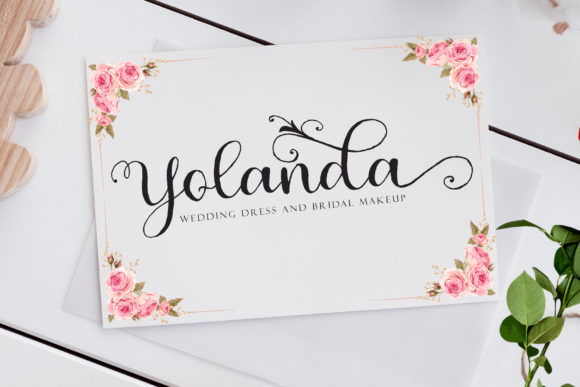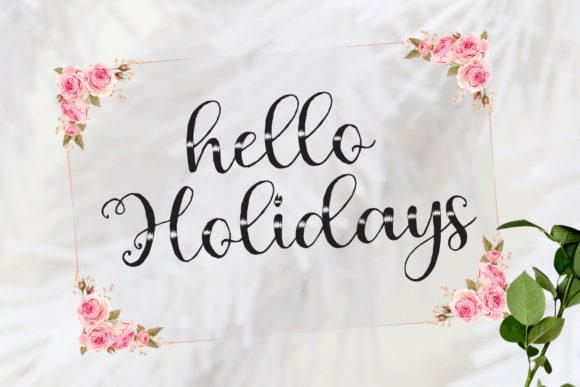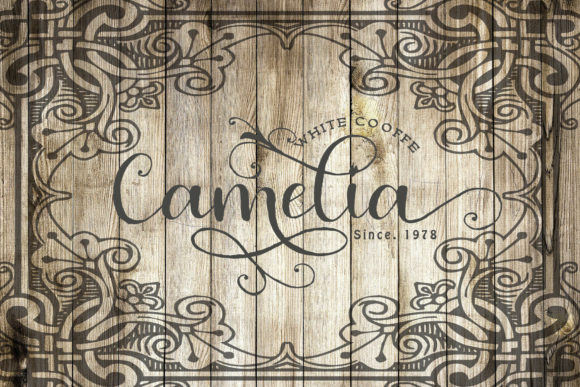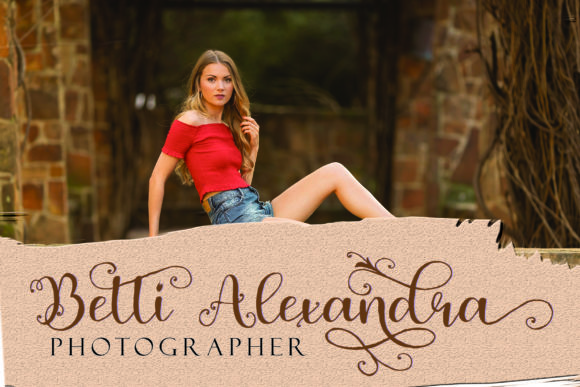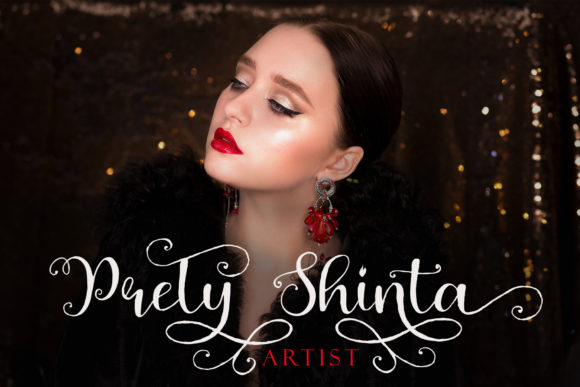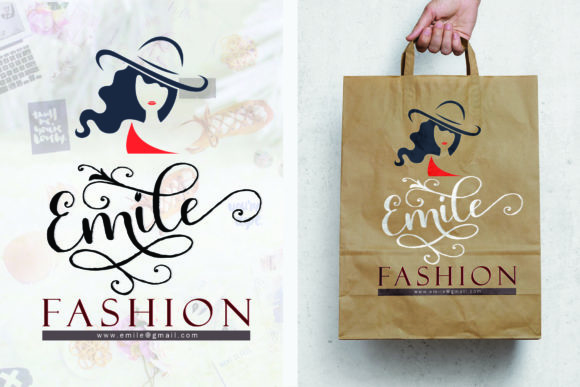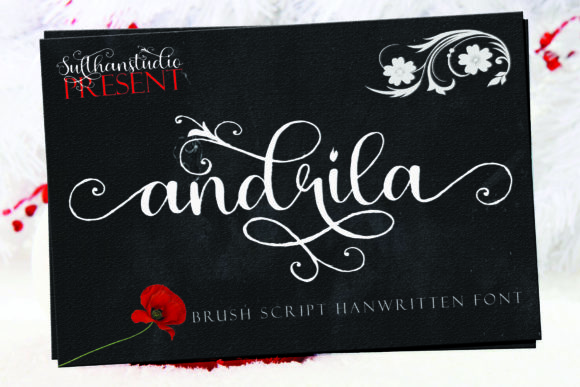
Introducing Andrila Font: The Sweet Script Font for Personalized Designs
Andrila is a stunning and sweet script font that will add a personal touch to any design idea! If you’re a designer or crafter looking for a unique and eye-catching font to make your projects stand out, Andrila is the perfect choice. In this article, we’ll dive into the features and benefits of Andrila Font, and explore how it can elevate your designs to the next level.
What is Andrila Font?
Andrila is a beautifully crafted script font that exudes elegance and sophistication. Its flowing curves and delicate lines make it perfect for a wide range of design applications, from wedding invitations and party decorations to branding and packaging. With its sweet and charming appearance, Andrila is sure to capture the hearts of designers and crafters alike.
Key Features of Andrila Font
- Unique and Hand-crafted Design: Andrila Font is carefully crafted with attention to detail, ensuring a unique and personalized look that sets it apart from other fonts.
- Sweet and Elegant Appearance: The font’s flowing curves and delicate lines give it a charming and sophisticated appearance that’s perfect for a wide range of design applications.
- High-quality and Readable: Andrila Font is designed to be highly readable, making it perfect for use in both digital and print designs.
Benefits of Using Andrila Font
So, why choose Andrila Font for your design projects? Here are just a few benefits of using this stunning script font:
- Adds a Personal Touch: Andrila Font’s unique and hand-crafted design adds a personal touch to any design idea, making it perfect for crafters and designers who want to create unique and personalized projects.
- Versatile and Flexible: Andrila Font can be used in a wide range of design applications, from digital designs to print materials, making it a versatile and flexible font choice.
- Elevates Your Designs: With its elegant and sophisticated appearance, Andrila Font is sure to elevate your designs and make them stand out from the crowd.
How to Use Andrila Font in Your Designs
Using Andrila Font in your designs is easy! Here are a few tips to get you started:
- Pair it with Other Fonts: Andrila Font pairs perfectly with other fonts, so feel free to experiment with different font combinations to create a unique look.
- Use it in Digital Designs: Andrila Font is perfect for use in digital designs, such as social media graphics, blog posts, and email marketing campaigns.
- Use it in Print Designs: Andrila Font is also perfect for use in print designs, such as business cards, brochures, and flyers.